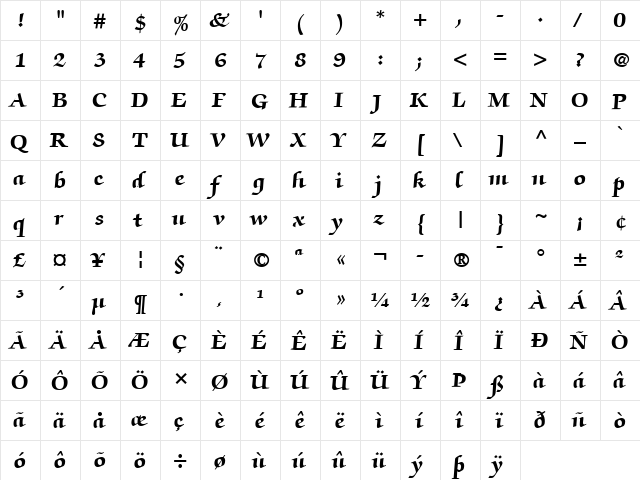
ZapfChancery LT Roman Bold
Design Context for ZapfChancery LT Roman Typeface
ZapfChancery LT Roman is a composed and adaptable typeface that performs quietly and consistently across a wide range of design contexts. The heavy weight commands attention and anchors typographic hierarchies.